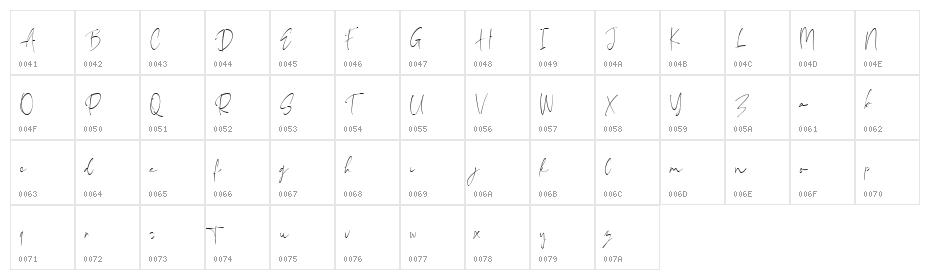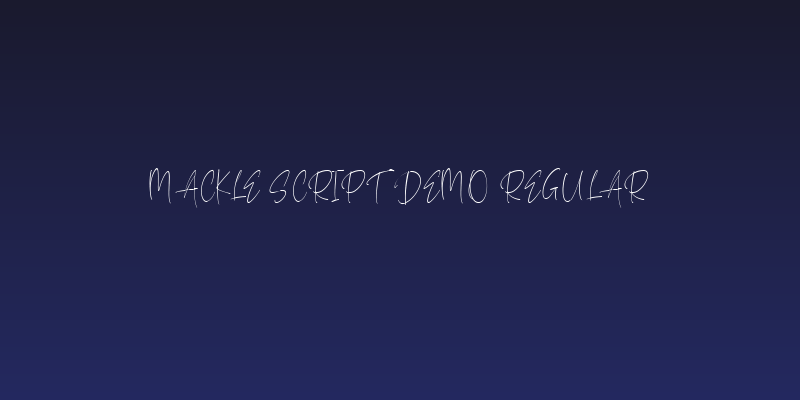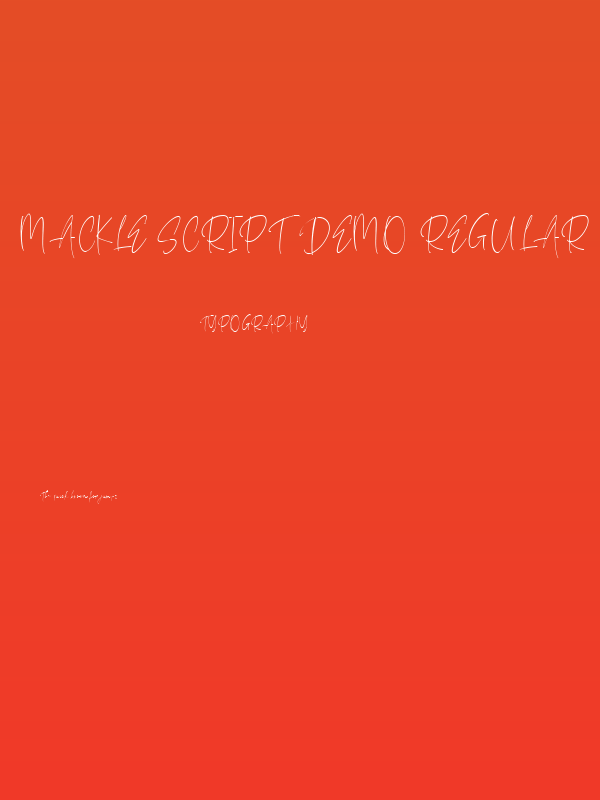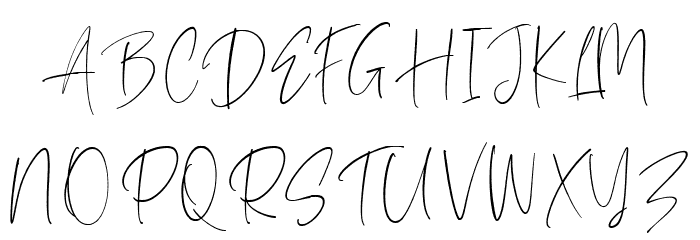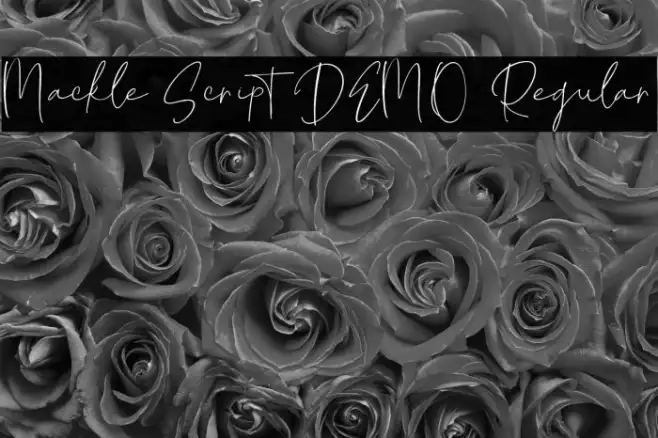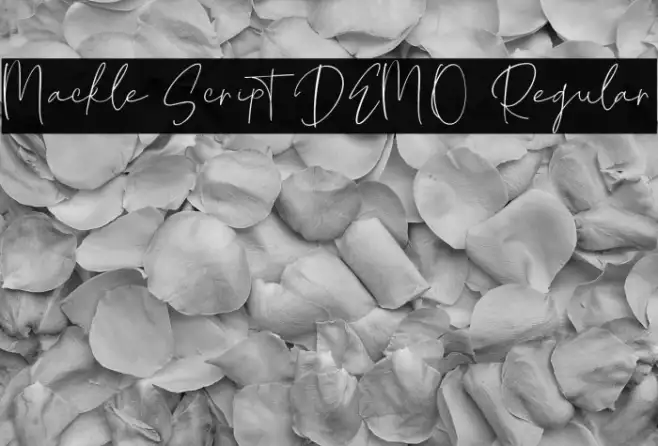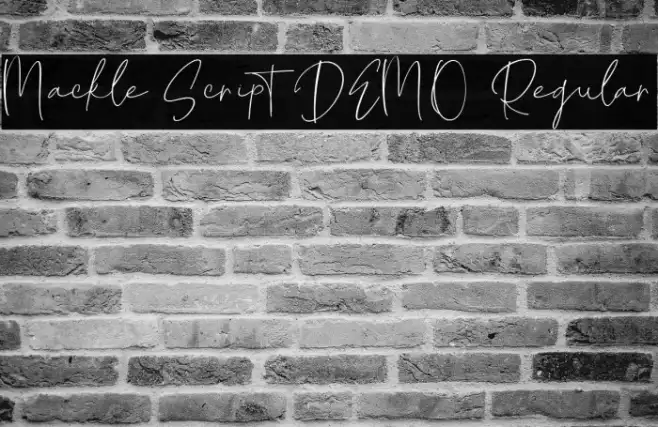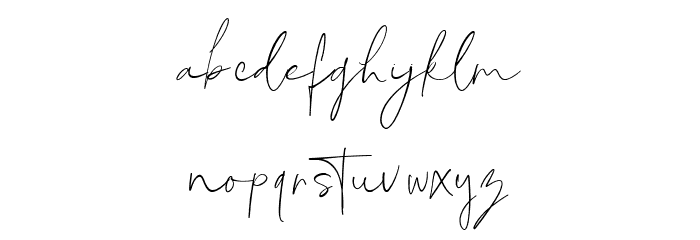
Mackle Script DEMO Regular Font
Mackle Script DEMO Regular Description
This font exudes a casual and artistic flair, characterized by its flowing, handwritten style. The letters are crafted with a light, airy touch, giving an impression of elegance and spontaneity. Each character is distinct, yet they all harmonize beautifully, creating a cohesive look. The strokes are thin and delicate, with a slight variation in thickness that adds a touch of dynamism. The uppercase letters are bold and expressive, while the lowercase letters maintain a more subtle and refined appearance. This font is perfect for projects that require a personal, human touch, such as invitations, greeting cards, or artistic branding.
| Overall Style | Casual, Artistic |
| Use Case | Headlines, Artistic projects, Personal branding |
| Proposed Projects | Ideal for invitations, greeting cards, artistic branding, and personal projects. |